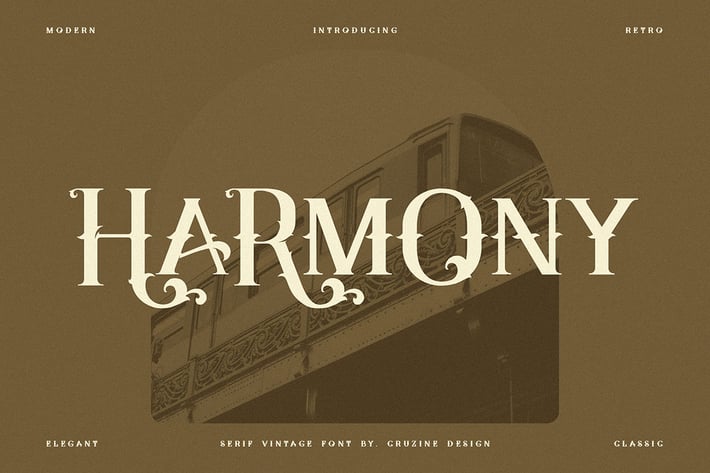
Harmony - Ornament Font
Unique ornamental, vintage, retro & decorative serif font. Great for your new logo or branding project.
- Great for retro or vintage style branding projects